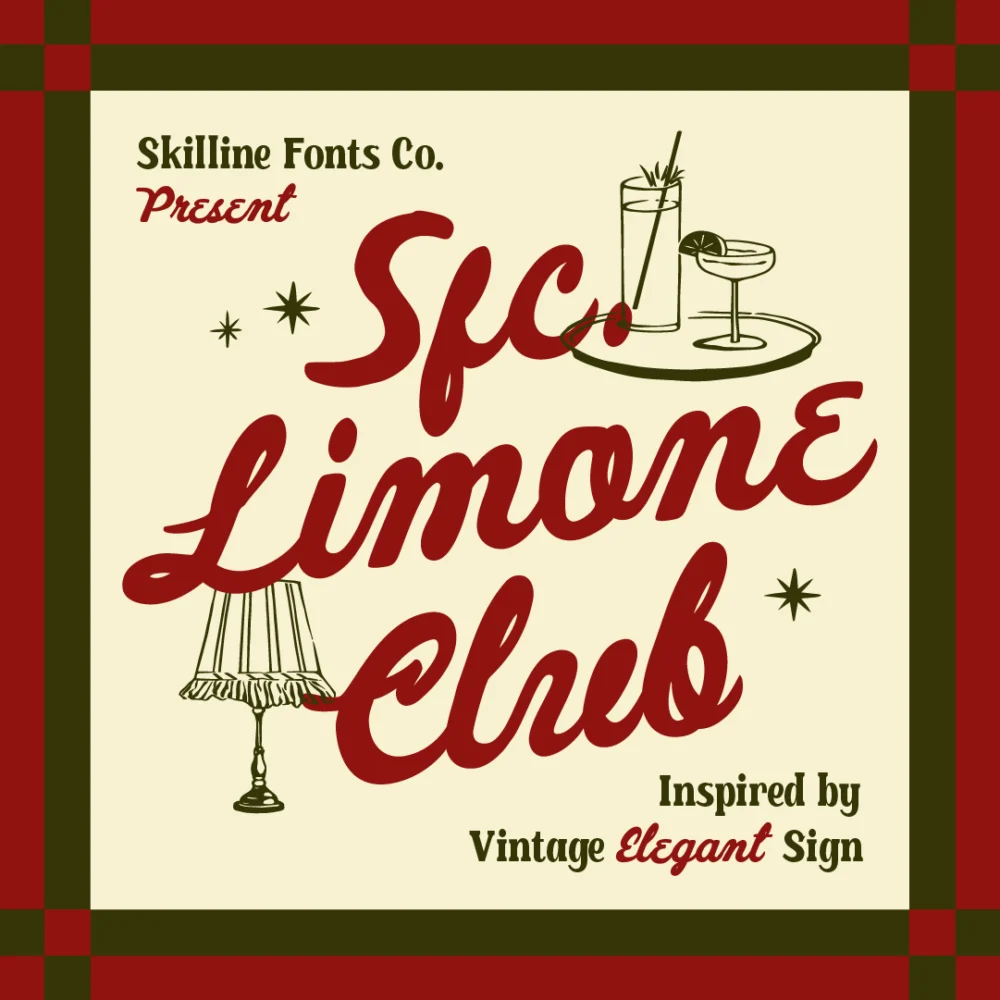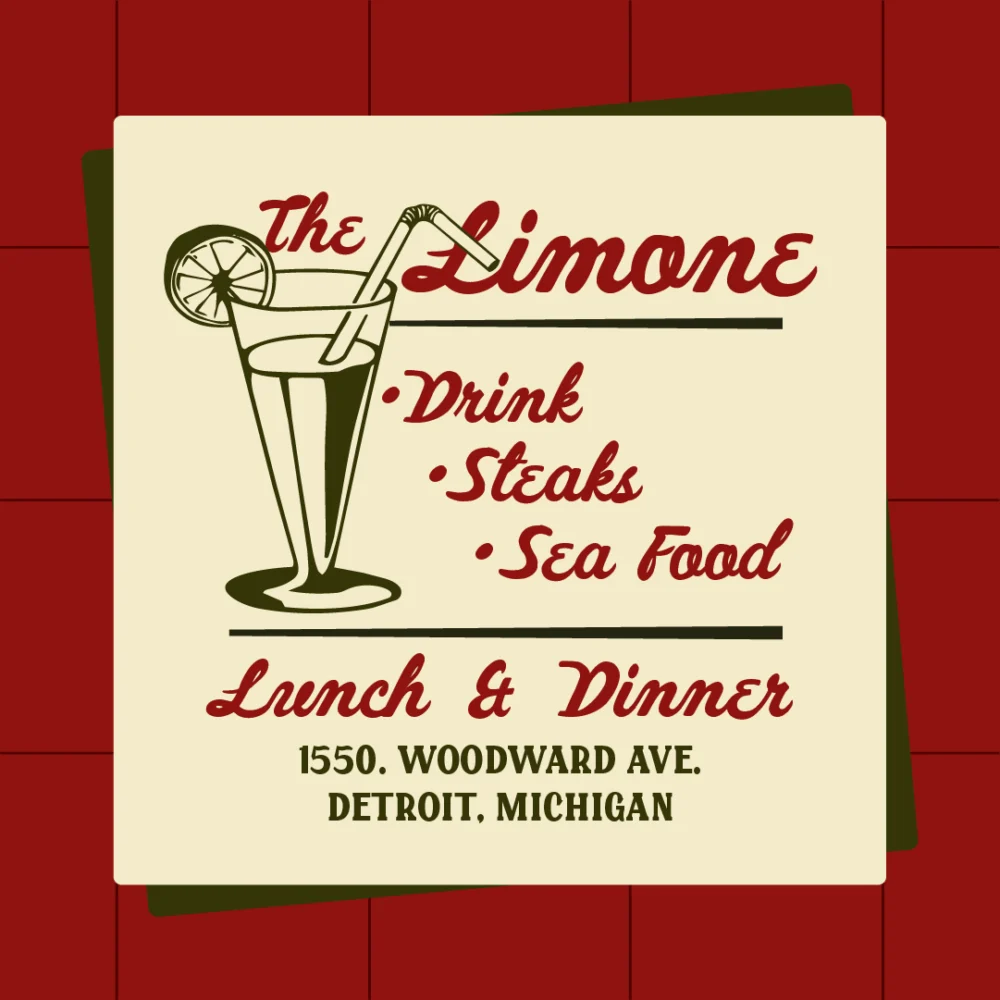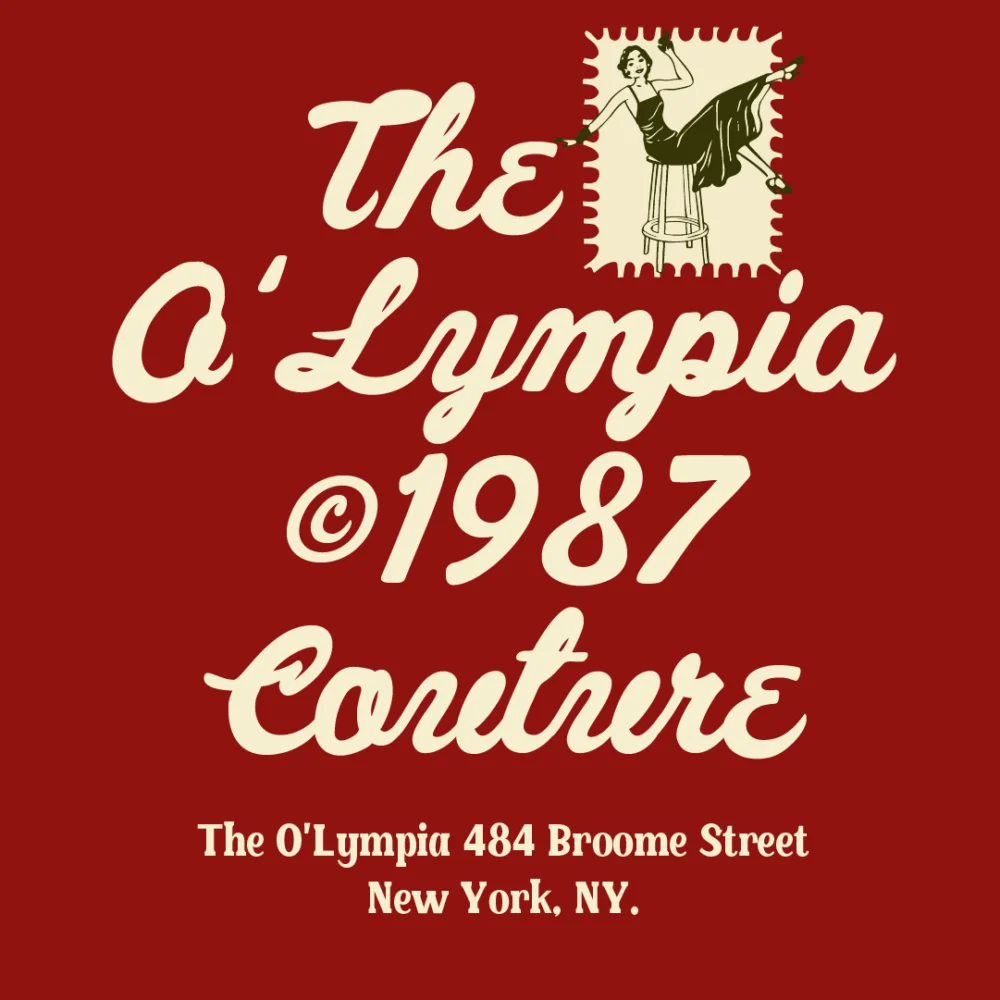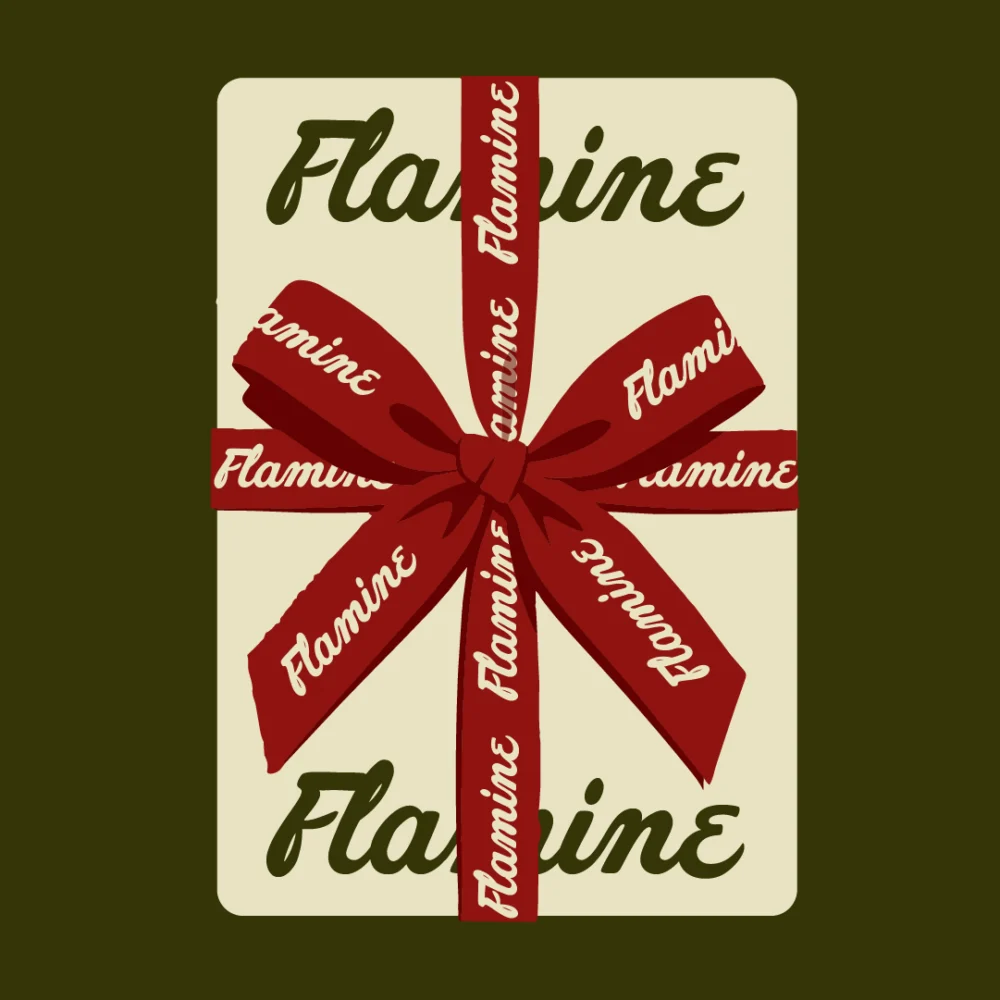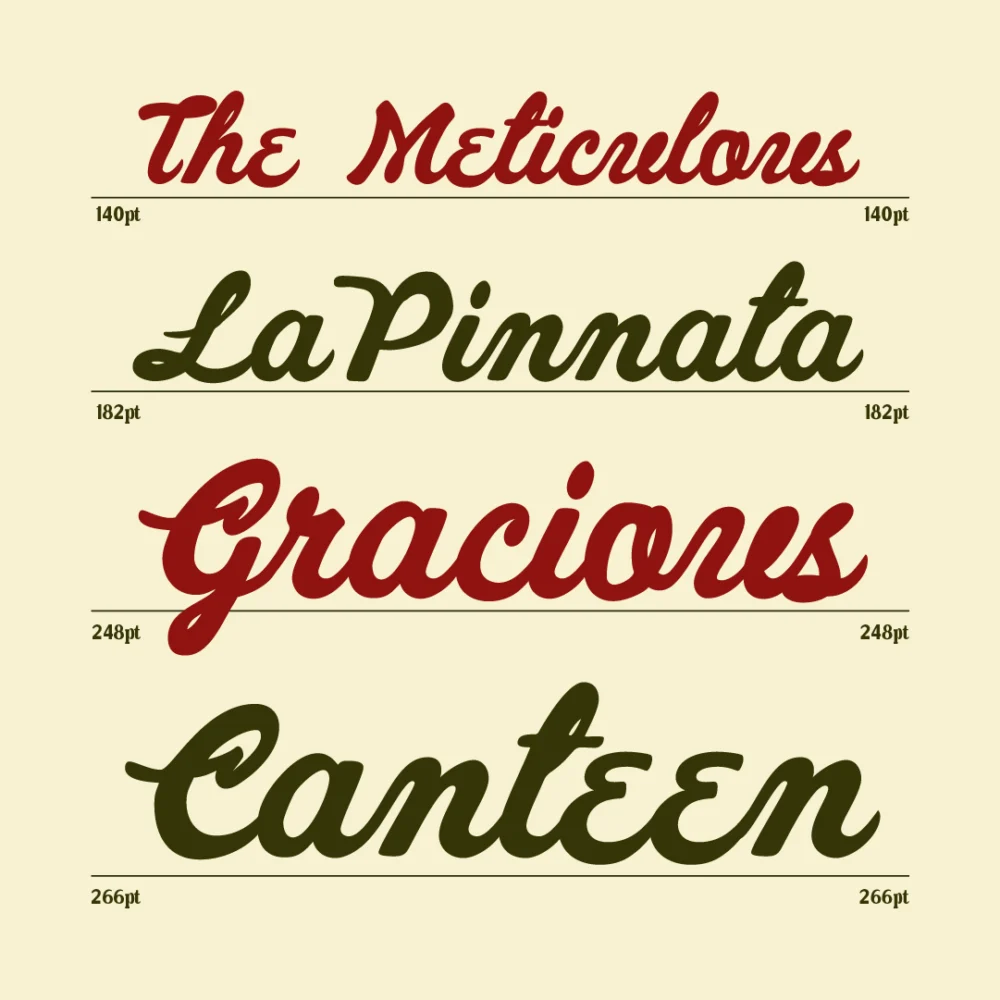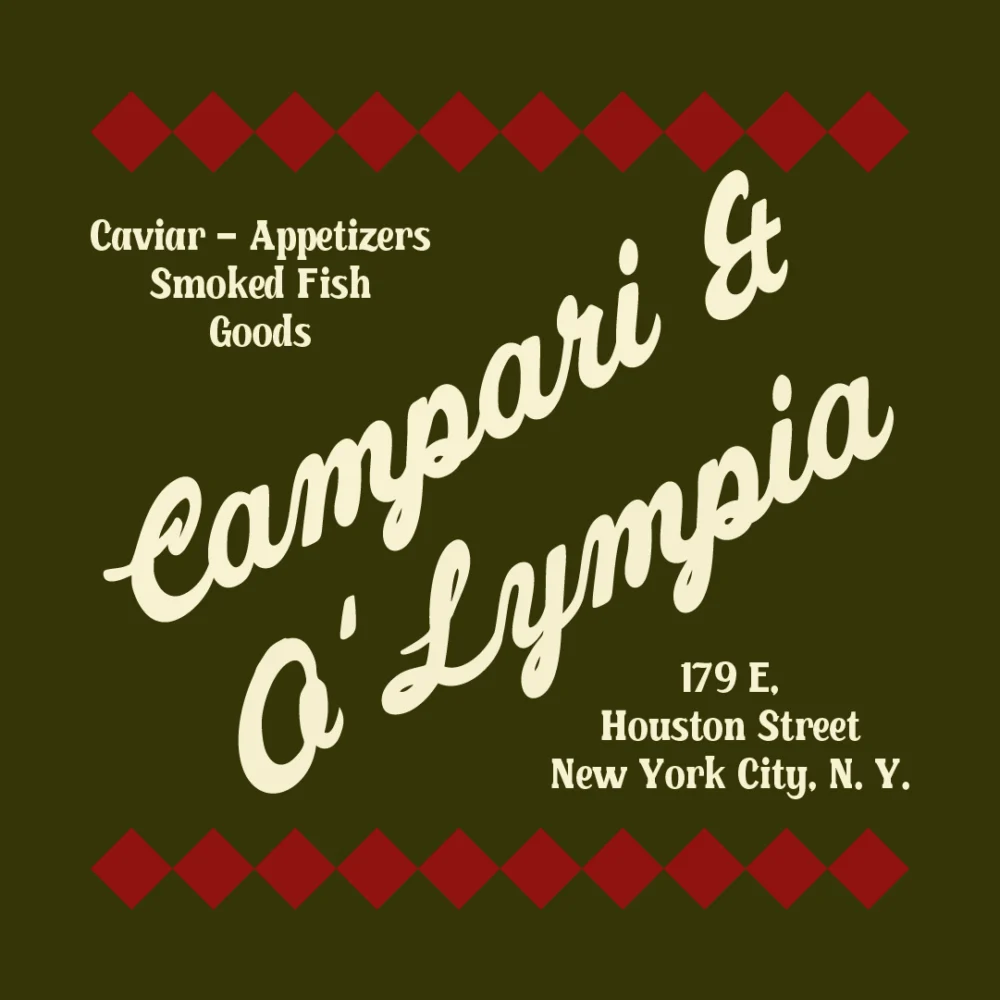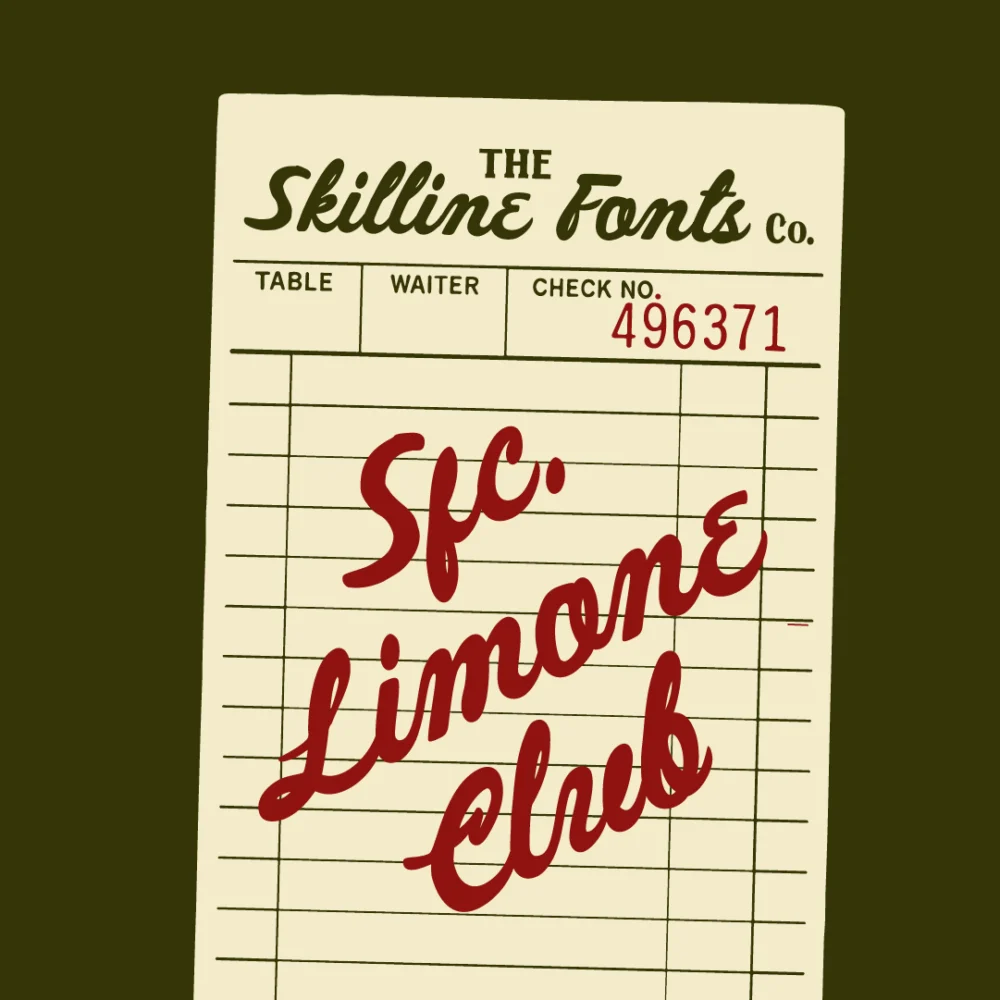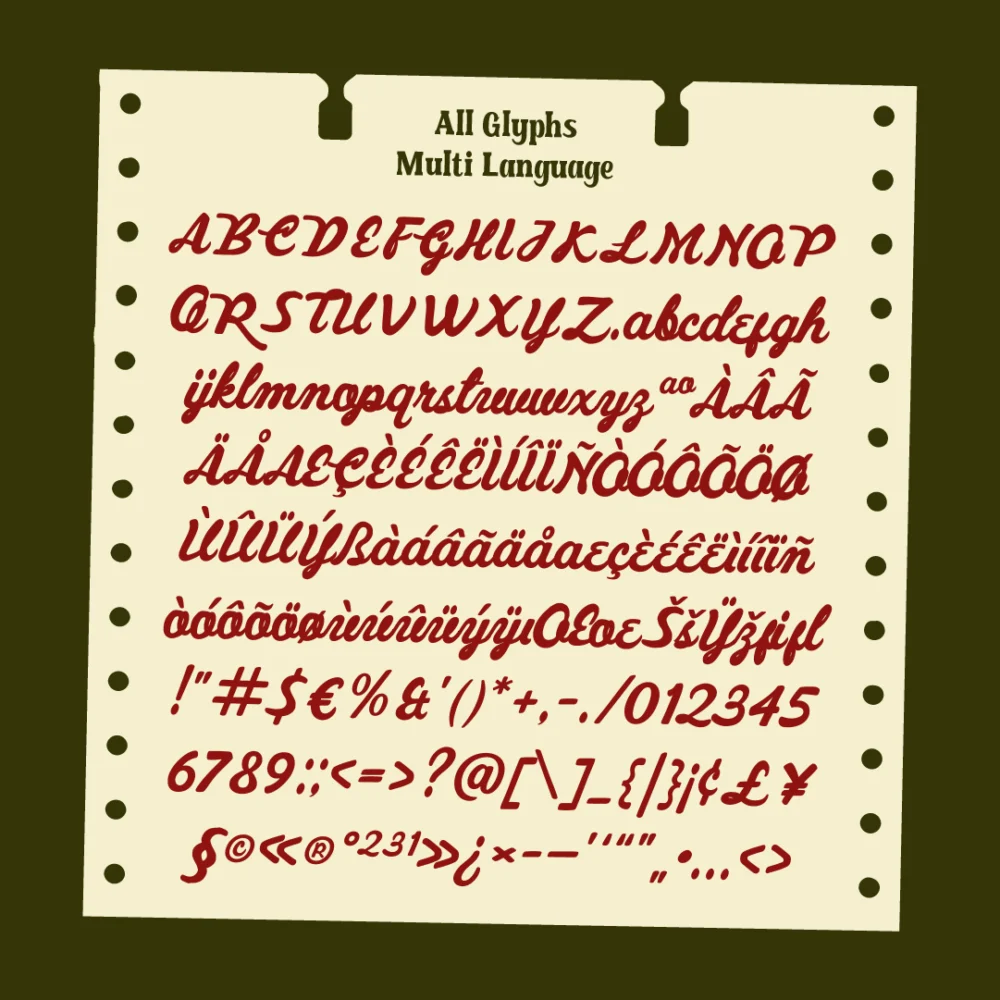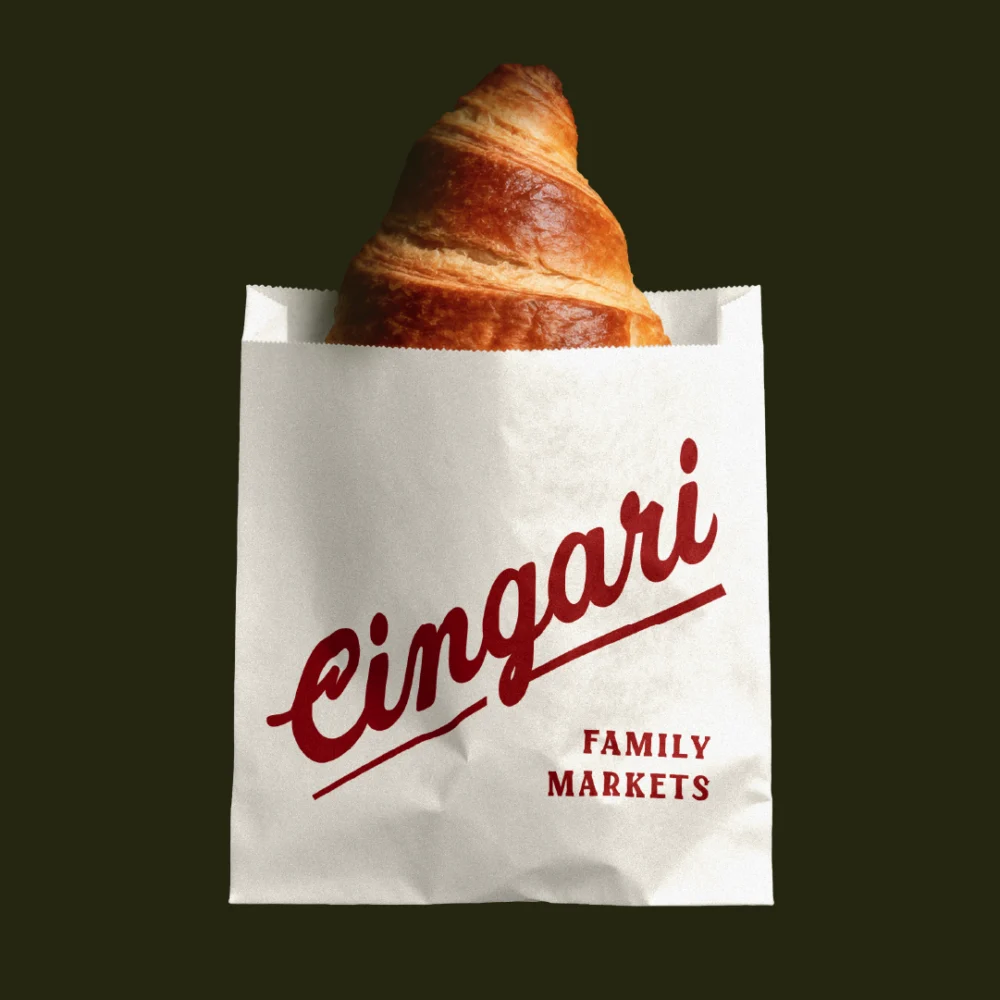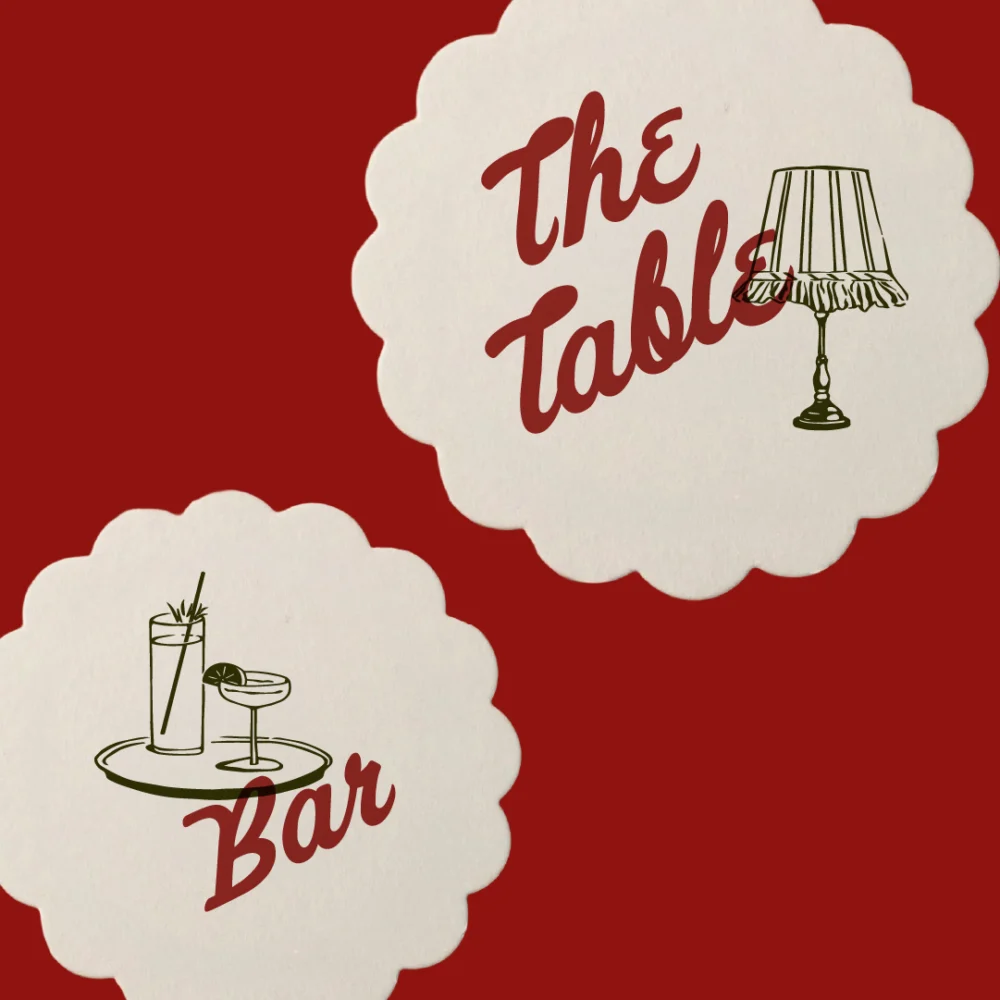
SFC Limone Club is a bold vintage script typeface inspired by classic sign painting, mid-century café graphics, old storefront lettering, and nostalgic printed ephemera.
With its flowing letterforms, expressive swashes, smooth curves, and hand-lettered personality, Limone Club brings a warm retro character to headlines and display typography. The organic connections and exaggerated strokes make it especially effective for vintage-inspired identities and expressive typographic compositions. Designed for branding, logos, packaging, menus, signage, posters, editorial layouts, labels, and other display-focused projects.
- Bold Vintage Script Typeface
- Smooth Hand-Lettered Forms & Expressive Swashes
- Retro Sign-Painting Character with Organic Curves
- Numerals, Punctuation & Symbols
- Multi Language Support